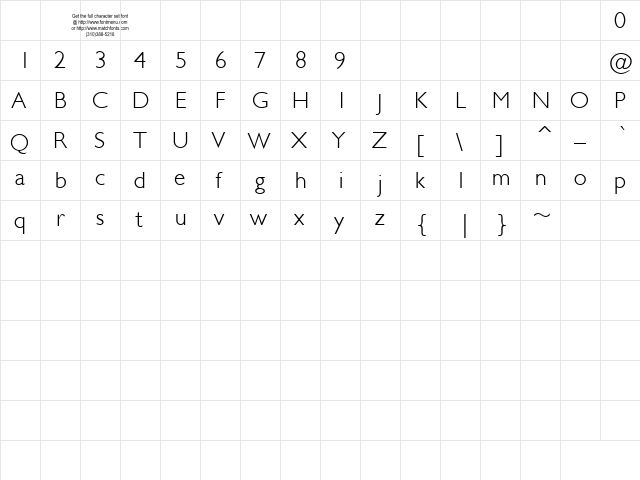
JunienLight Tryout Regular
Design Context for JunienLight Tryout Typeface
JunienLight Tryout takes a measured approach to typography — its balanced proportions and neutral character make it a reliable workhorse for both digital and print work. The delicate stroke weight brings airiness and refinement to layouts.